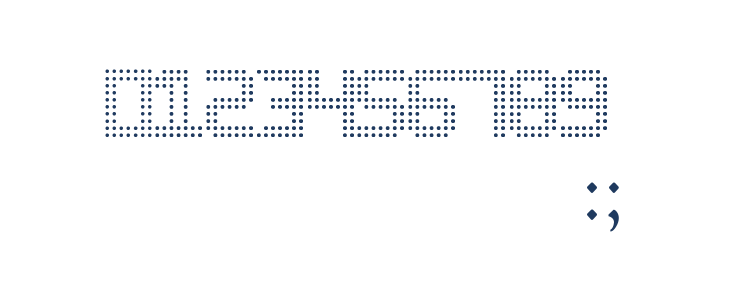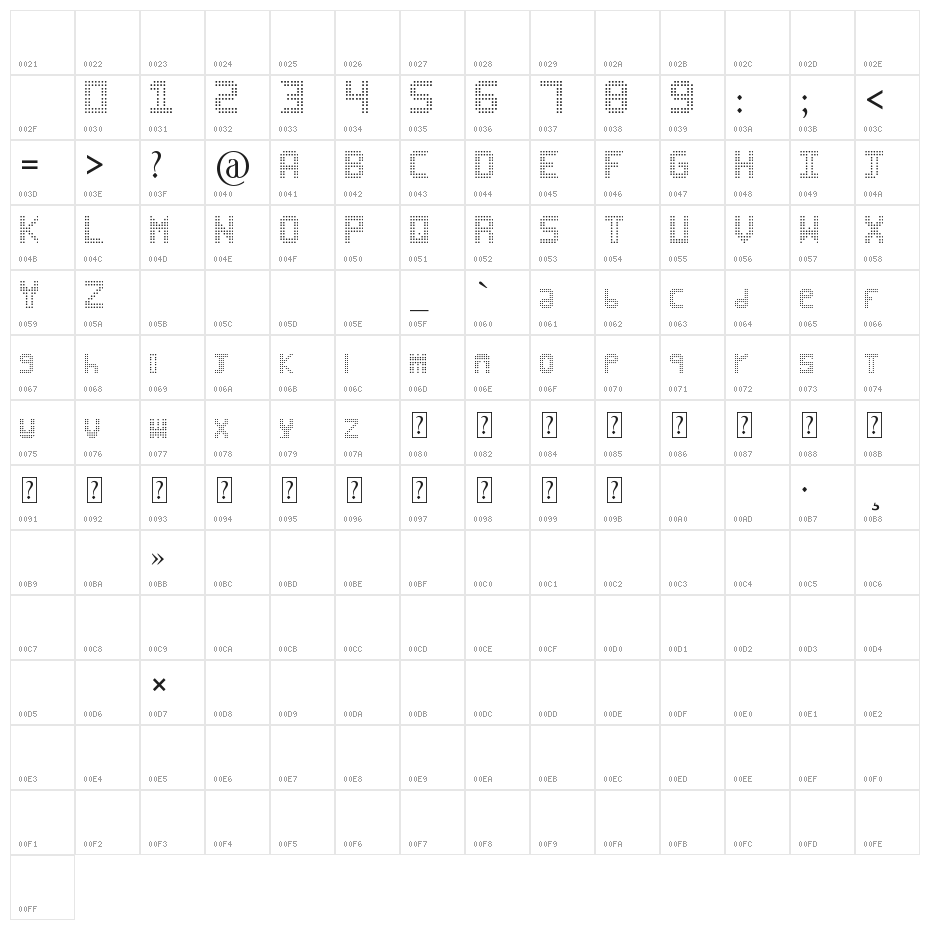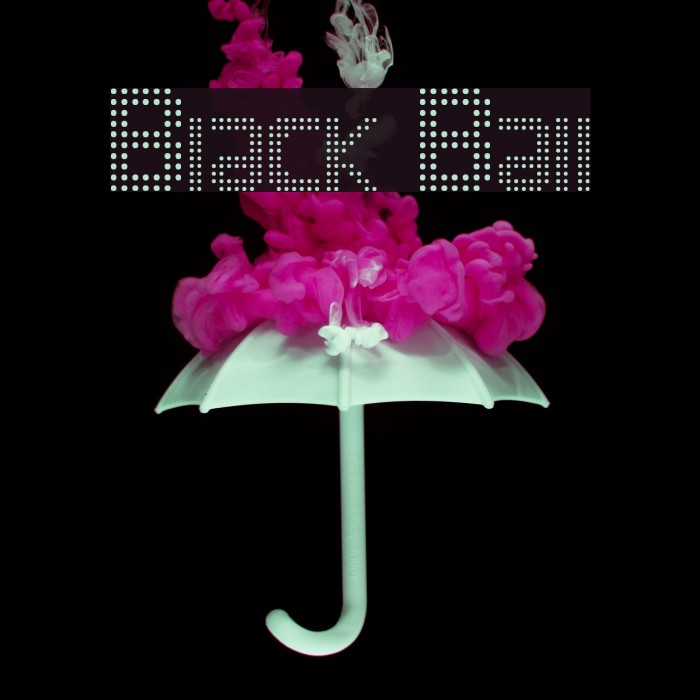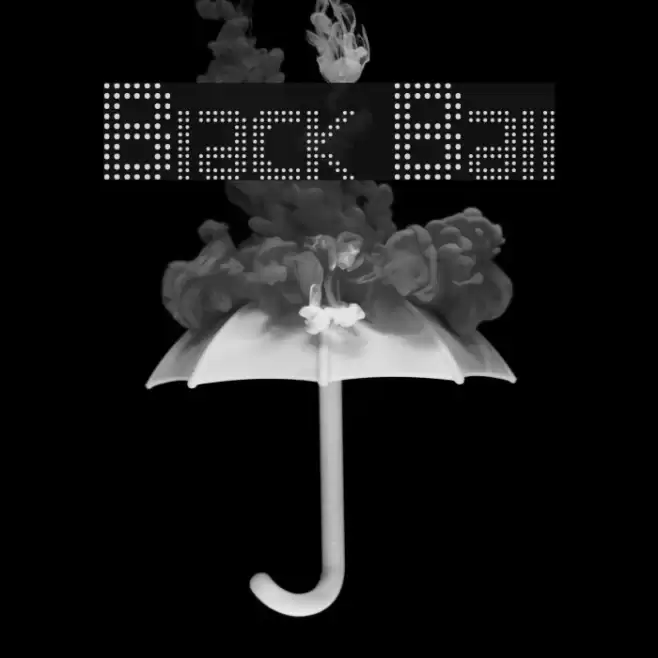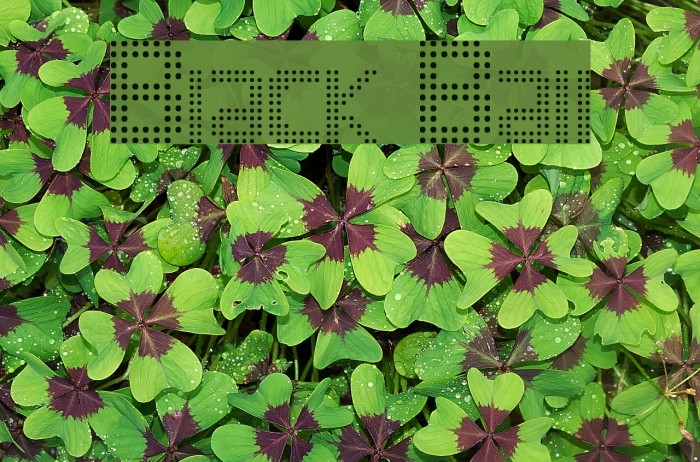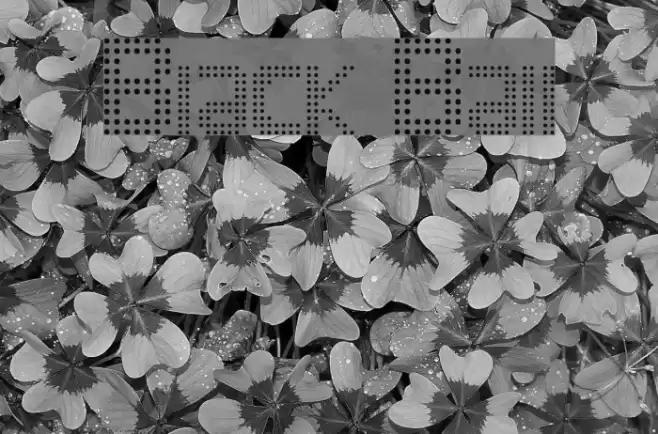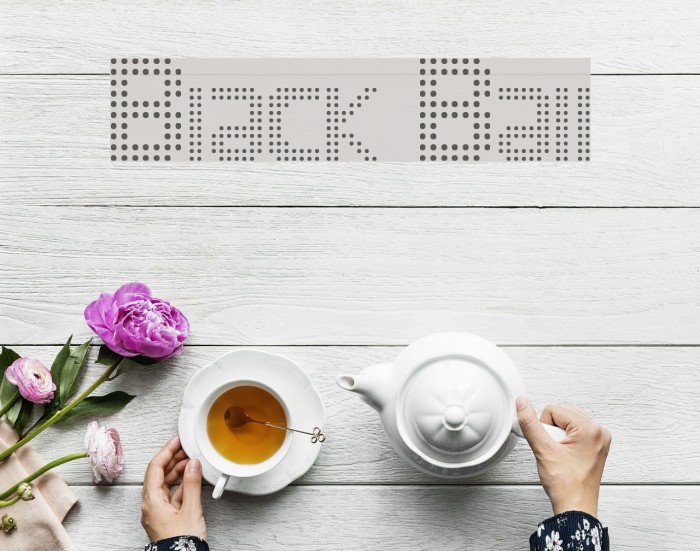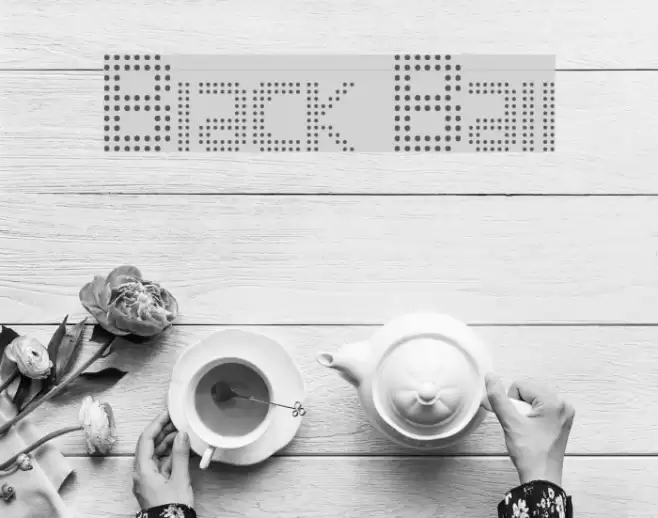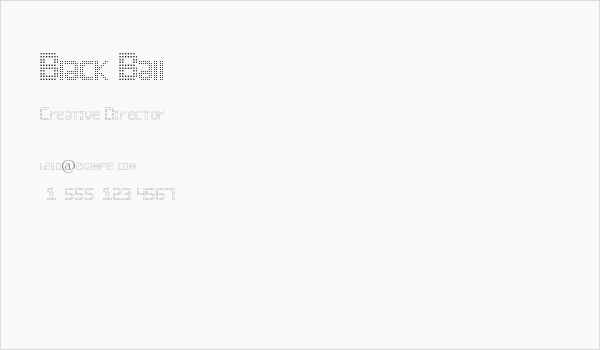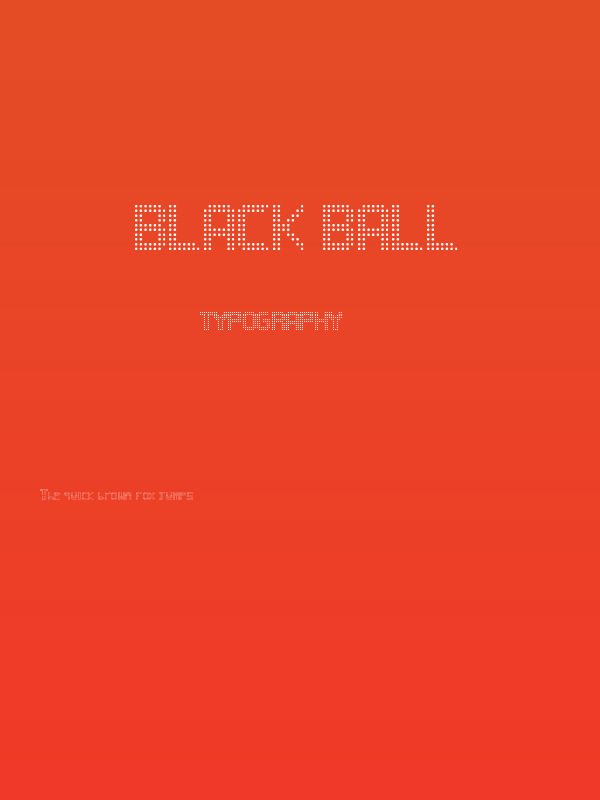
Black Ball Font
Black Ball Description
This font features a unique dot matrix style, creating characters from a grid of evenly spaced dots. The design is reminiscent of digital displays or retro computer screens, offering a distinctive and modern aesthetic. Each character is composed of small, uniform dots that form the outlines and shapes of letters and numbers, giving it a pixelated appearance. The font maintains a consistent structure across uppercase, lowercase, and numerical characters, ensuring readability while maintaining its decorative appeal. The spacing between the dots is precise, contributing to a clean and organized look. This font is ideal for projects that require a futuristic or tech-inspired theme, adding a touch of nostalgia with its digital display-like appearance.